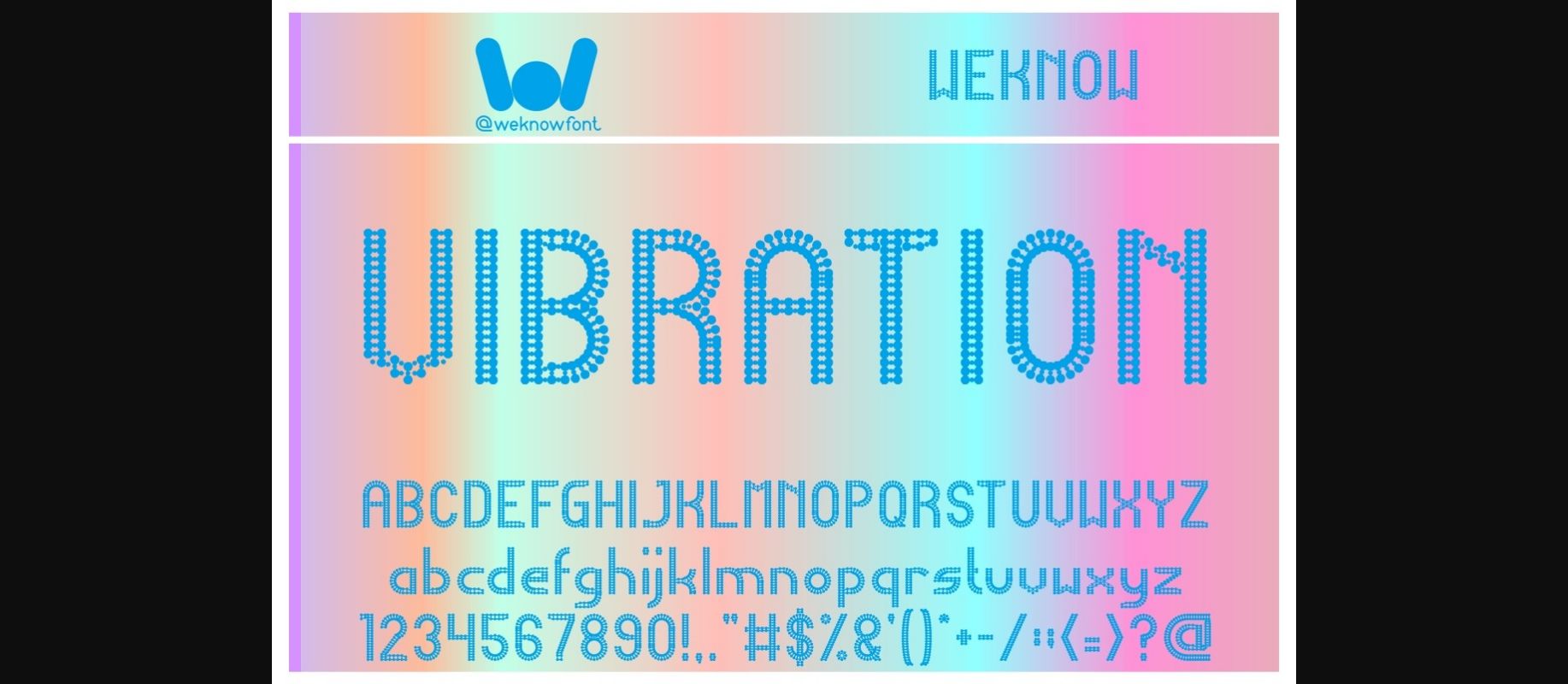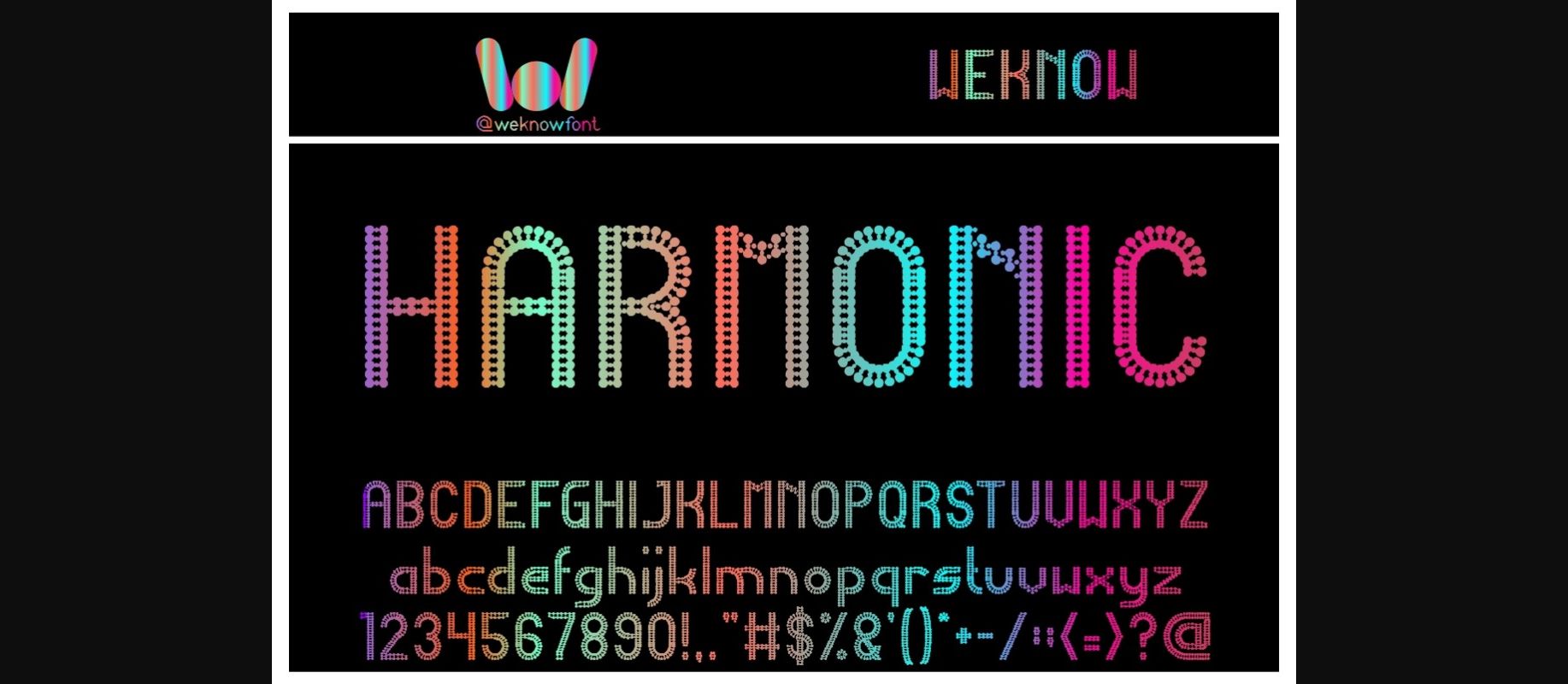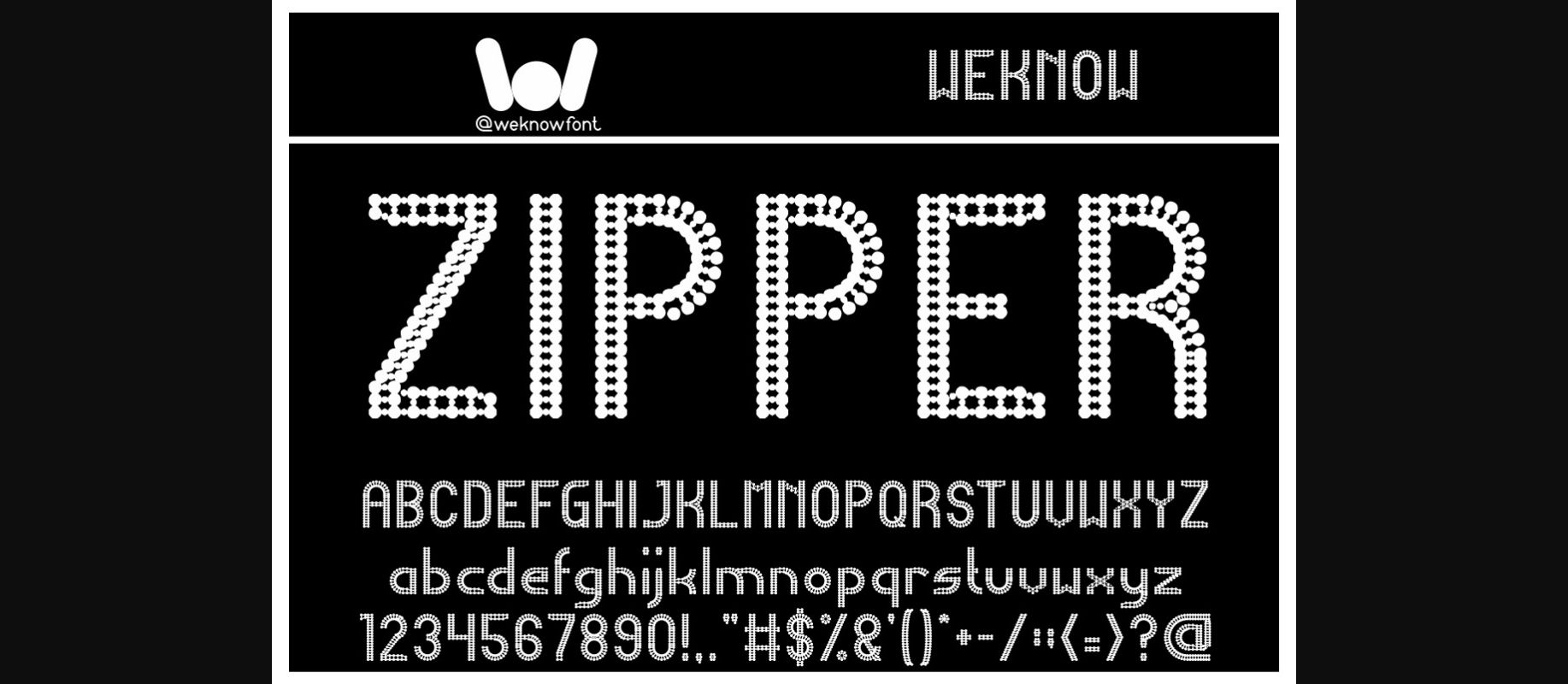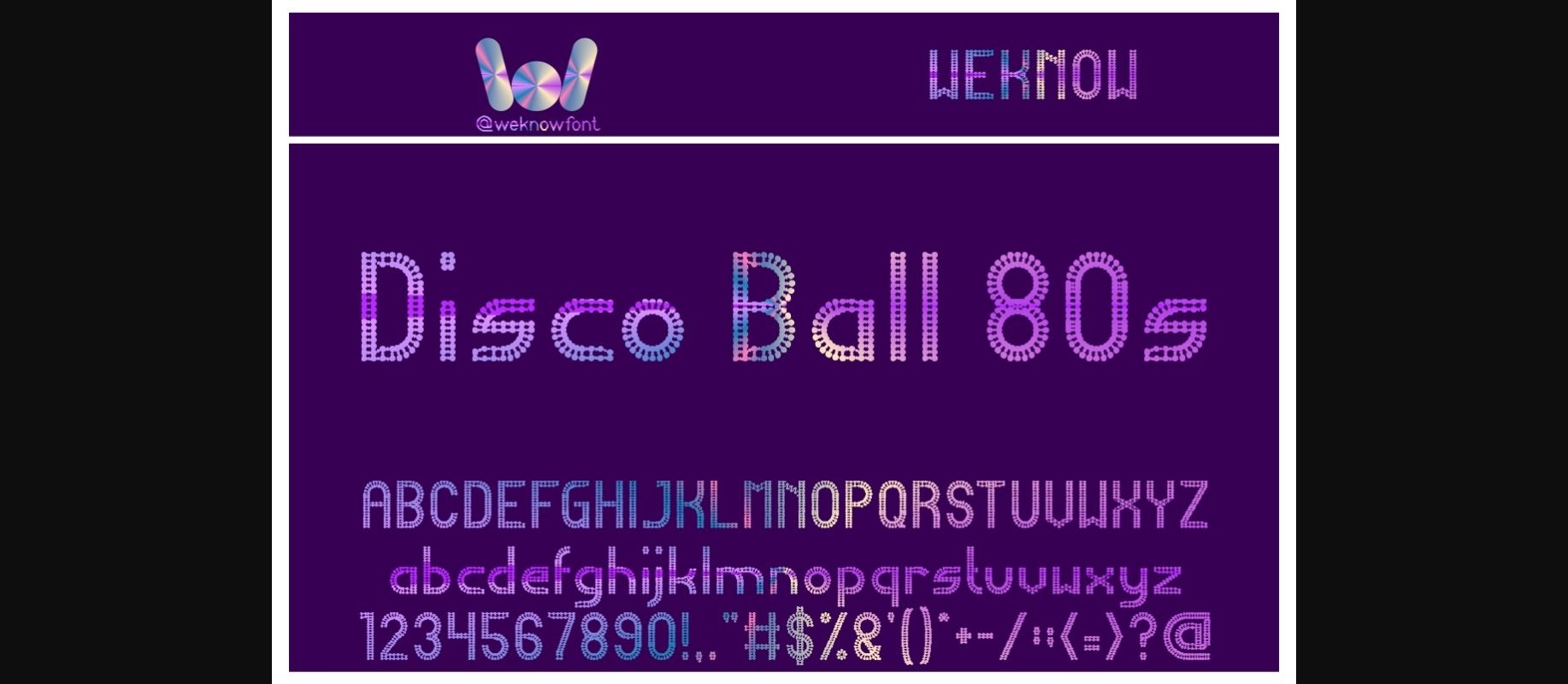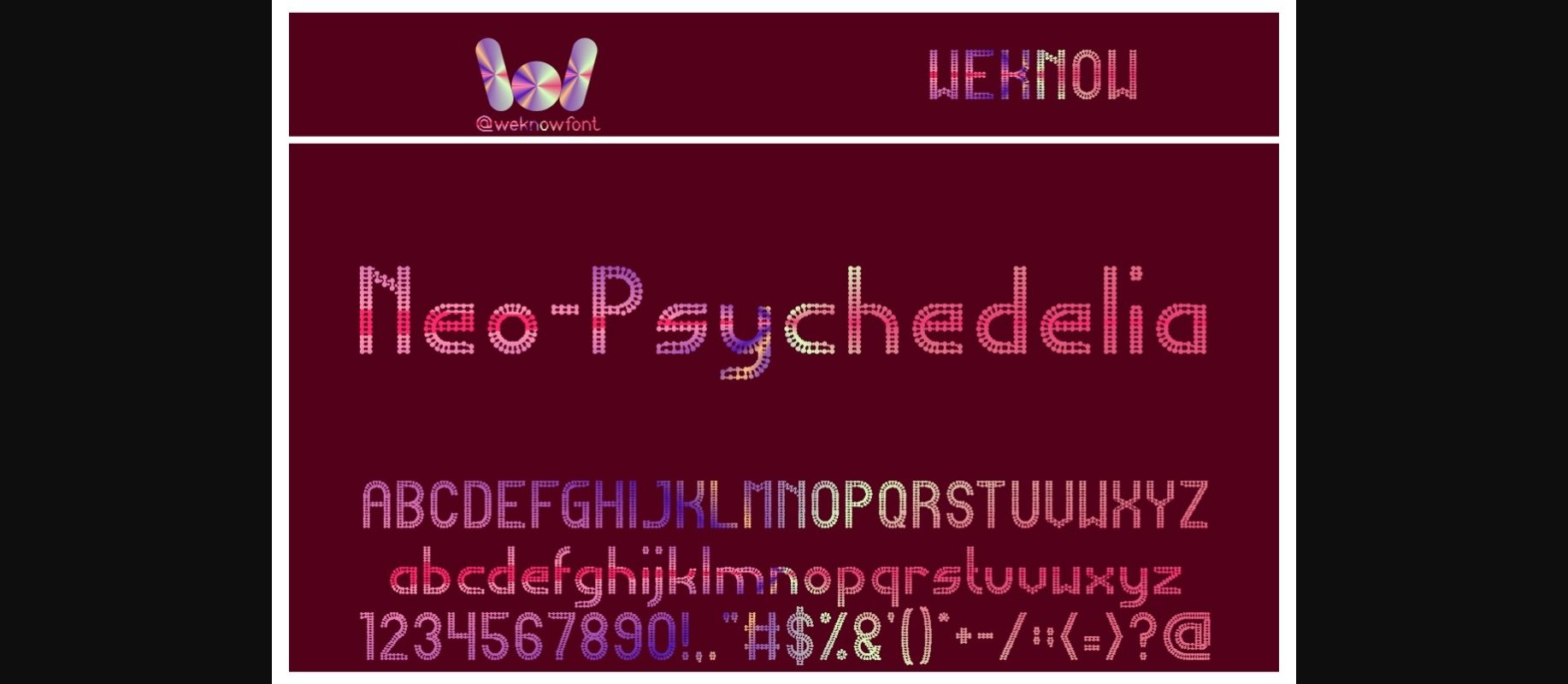
HomeDecorative FontsHarmonic Font Decorative Fonts Harmonic Font FacebookXPinterestWhatsApp 1 of 7 ... Harmonic Font Poster 2... Harmonic Font Poster 3... Harmonic Font Poster 4... Harmonic Font Poster 5... Harmonic Font Poster 6... Harmonic Font Poster 7... About Harmonic Font Harmonic is an incredibly cool and unique decorative font. This modern and bold vibe can easily apply to your favorite designs. DOWNLOAD NOW People also explored Bintang Noela Charming Font Loventtine Font Amorra Font Meysha Font Morena Font Boxer Script Wonderful Life Font Safety Switch 365 0 TagsHarmonic Font Previous articleBucks FontNext articleGrizzly Bear Font LEAVE A REPLY Cancel reply Comment: Please enter your comment! Name:* Please enter your name here Email:* You have entered an incorrect email address! Please enter your email address here Website: Save my name, email, and website in this browser for the next time I comment. Personal Use Free Krase Personal Use Free Read more about this font Nulshock Bold Personal Use Free Read more about this font Street Cred Personal Use Free Read more about this font Lemon Milk Font Personal Use Free Read more about this font BLOG Transform Your Website: Elevate Your Typography with 7 Best Web Font Generators Are you ready to transform your website's typography from ordinary to extraordinary? Great! Today, we're diving into the world of web font generators, which... Best Fonts for YouTube Videos: Make Your Thumbnails Stand Out Free vs Paid Fonts: Why Investing in Premium Fonts Is Worth It Fonts That Capture the Spirit of New York City